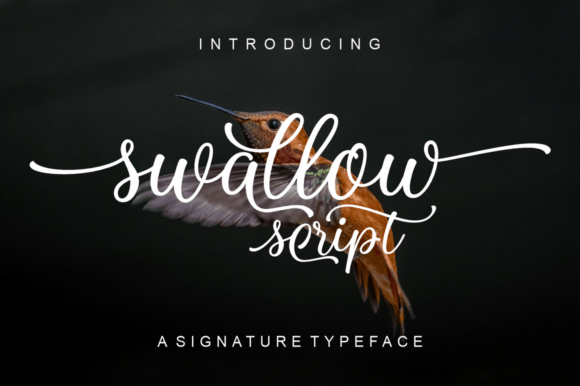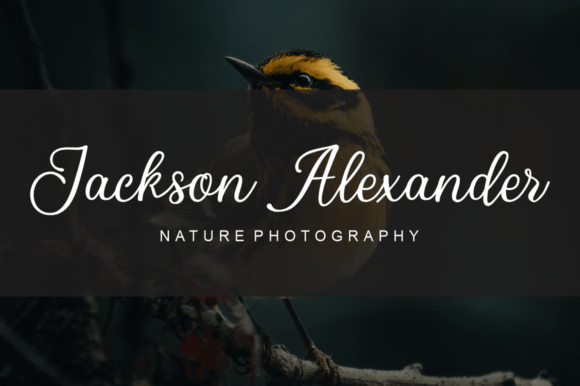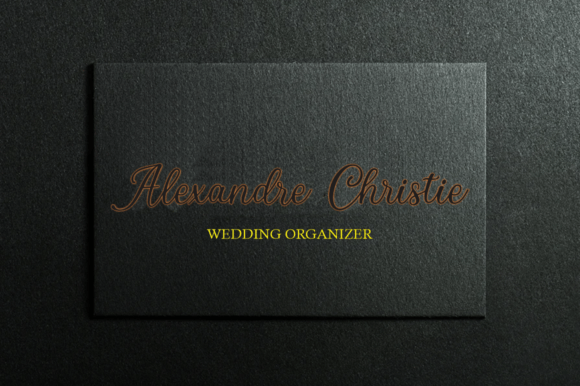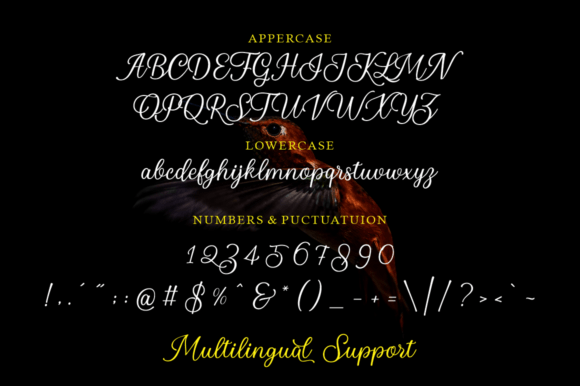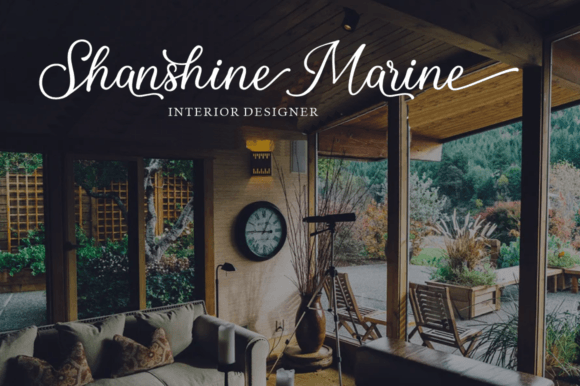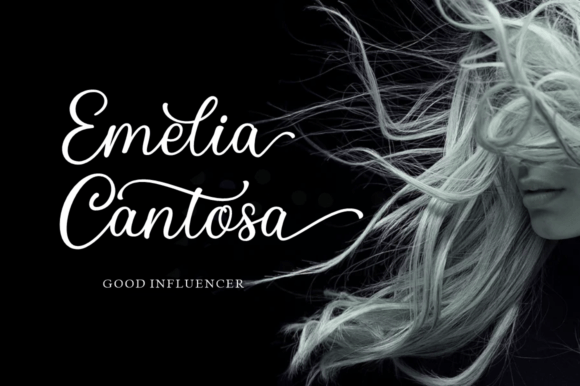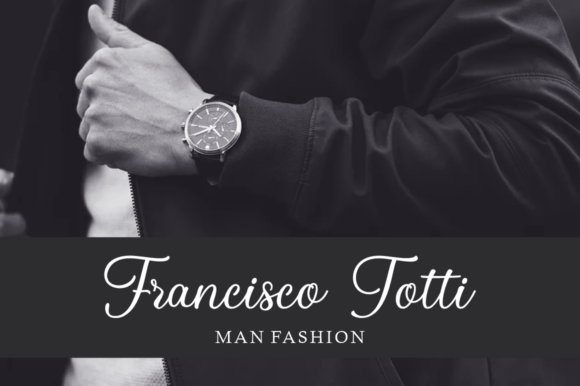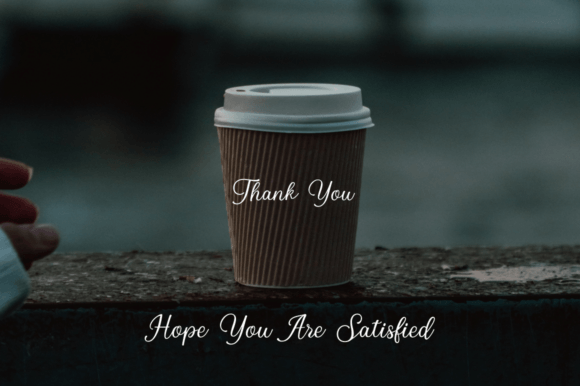
Swallow Script Font
About Swallow Script Font
Swallow is a dazzling script font that captivates with its meticulous craftsmanship and intricate details. It stands out as a finely crafted and highly detailed typeface that holds the potential to elevate any creation, regardless of the topic or design context.
The dazzling quality of Swallow is evident in its carefully designed script, which adds a touch of elegance and sophistication to the text. Its versatility allows it to seamlessly adapt to a wide range of projects, making it a valuable asset for your font library.
The font’s PUA encoding is a notable feature, providing easy access to all glyphs and swashes. This feature enhances the user experience, allowing for effortless customization and personalization of your designs. Swallow becomes not just a font but a versatile tool that empowers your creativity.
Imagine Swallow gracing your designs, whether it’s on elegant invitations, sophisticated branding materials, or any creative project that demands a touch of refinement. The font becomes a key element that enhances the visual appeal, making your creations stand out with a dazzling and stylish flair.
In summary, Swallow is more than just a font; it’s a design asset that brings a sense of dazzle and refinement to your projects. Embrace its detailed and carefully crafted aesthetic, and let it be the choice that adds a touch of sophistication and elegance to your creative endeavors.